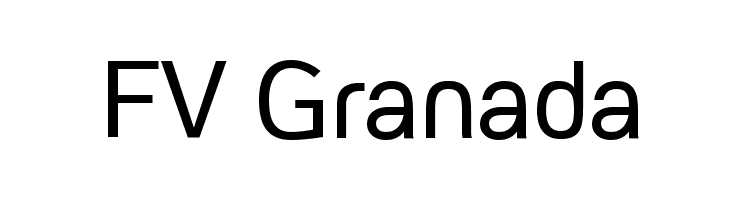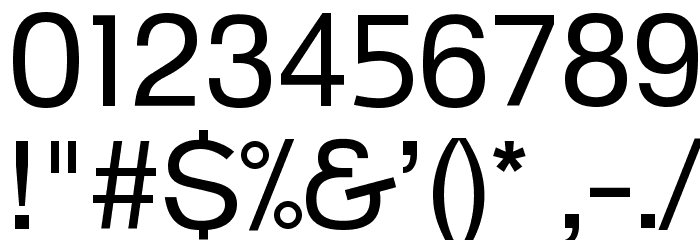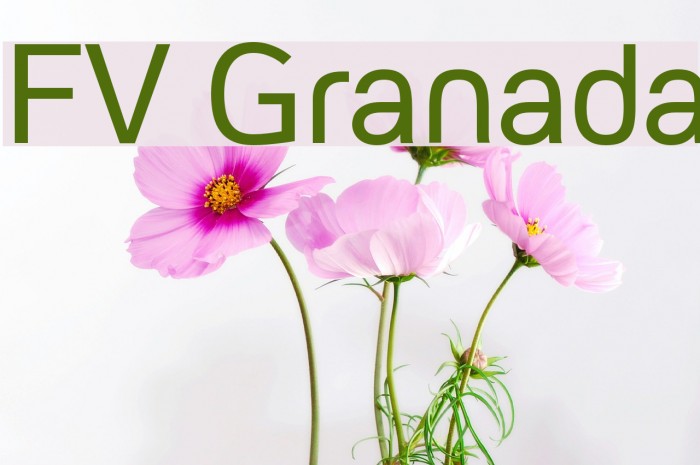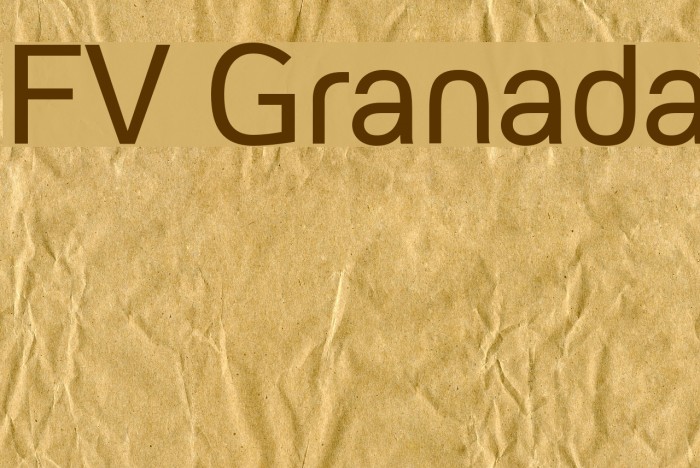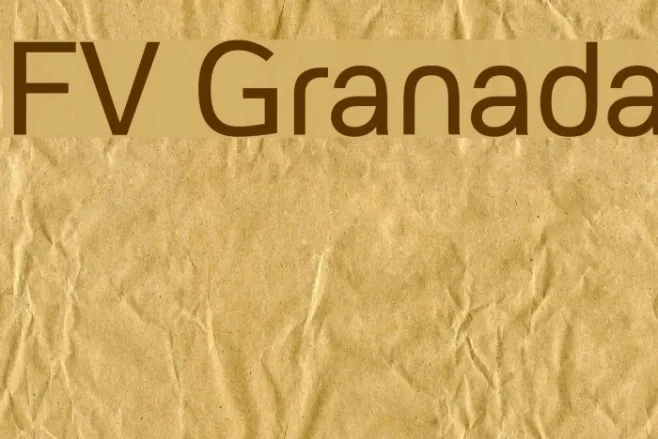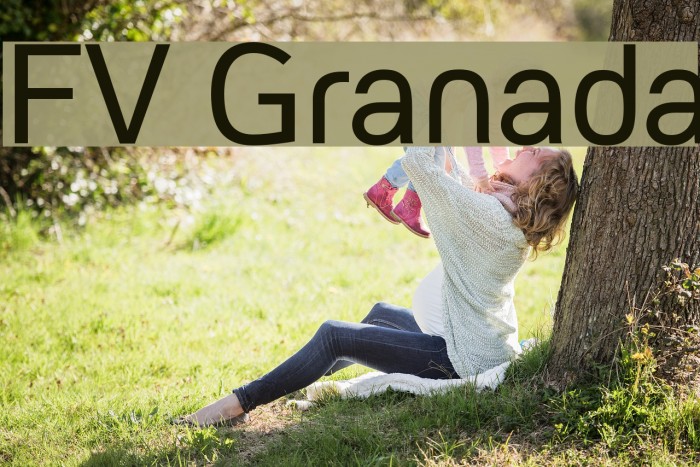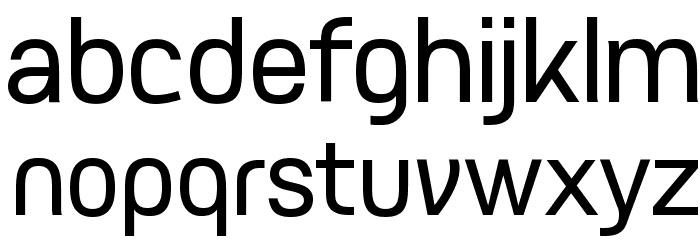
FV Granada Font
This font features a clean and modern sans-serif design, characterized by its geometric shapes and uniform stroke widths. The uppercase letters are bold and well-defined, providing a strong visual impact, while the lowercase letters maintain a consistent style with rounded edges that soften the overall appearance. The numerals are clear and easily distinguishable, making them suitable for various applications. Special characters are included, offering versatility for different contexts. The font's simplicity and clarity make it highly readable, even at smaller sizes.
A modern, geometric sans-serif font with clean lines and excellent readability.
• Proposed Projects: Ideal for branding, web design, digital interfaces, and print media where clarity and modern aesthetics are desired.
• Category: Sans-Serif
• Character Spacing: Normal
• Contrast: Low
• Overall Style: Modern
• Use Case: Headlines, Body text, Logos